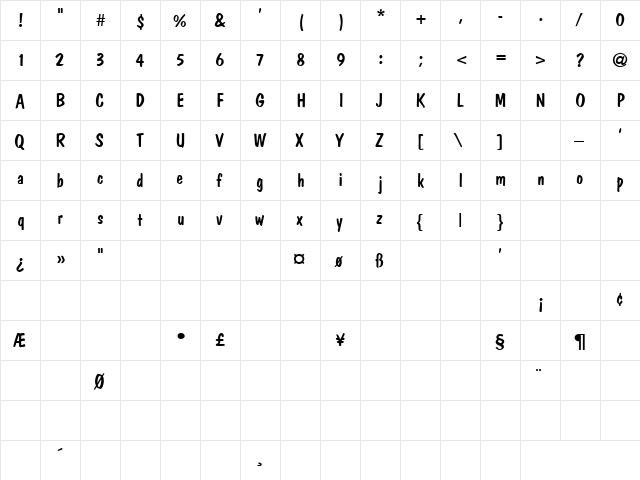
Chills 5 Regular
Design Context for Chills 5 Typeface
Chills 5 takes a measured approach to typography — its balanced proportions and neutral character make it a reliable workhorse for both digital and print work.